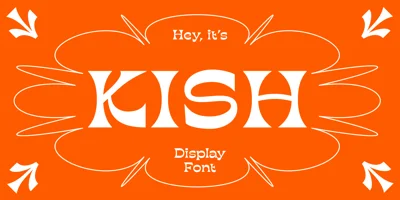
Kish Font
The Kish Font excels in various design applications including ancient civilization branding, archaeological museum communications, historical heritage projects, Middle Eastern cultural materials, ancient studies publications, cuneiform-inspired designs, Mesopotamian tourism marketing, historical documentary titles, cultural preservation campaigns, and distinguished antiquity projects that demand ancient wisdom and archaeological sophistication.
What makes the Kish Font exciting is its profound connection to ancient Mesopotamian civilization through letterforms that capture the essence of one of humanity's earliest urban centers and the birthplace of written history. This typeface embodies the timeless appeal of ancient wisdom through carefully crafted characters that suggest cuneiform inscriptions, archaeological discoveries, and the enduring legacy of civilizations that laid the foundation for human progress. The font's ancient personality makes it perfect for cultural institutions and educational organizations seeking to communicate historical importance, archaeological authenticity, and the kind of deep cultural roots that connect contemporary audiences with the dawn of civilization through typography that honors humanity's earliest achievements.
The Kish Font family typically includes distinguished weight variations that reflect different aspects of ancient civilization, featuring classical proportions and extended character sets supporting historical and educational applications. These family options often include archaeological symbols, ancient-inspired ornaments, and Mesopotamian decorative elements that provide designers with comprehensive tools for creating authentic historical typography that honors the legacy of ancient Kish and early civilization while maintaining contemporary accessibility and scholarly credibility.
Archaeological professionals and cultural heritage institutions consistently select Kish Font for projects requiring typography that establishes historical credibility and ancient cultural resonance. This typeface delivers exceptional performance in museum exhibitions, historical education materials, and cultural communications where connecting audiences with ancient civilization significance and demonstrating archaeological sophistication is essential for educational impact. The font's ancient character makes it particularly effective for Middle Eastern studies and archaeological applications. Download Kish Font today to access this historically rich typeface that transforms cultural communications with its ancient wisdom and archaeological sophistication, creating compelling educational experiences that honor the magnificent legacy of early Mesopotamian civilization while inspiring contemporary appreciation for the foundations of human culture and written history.